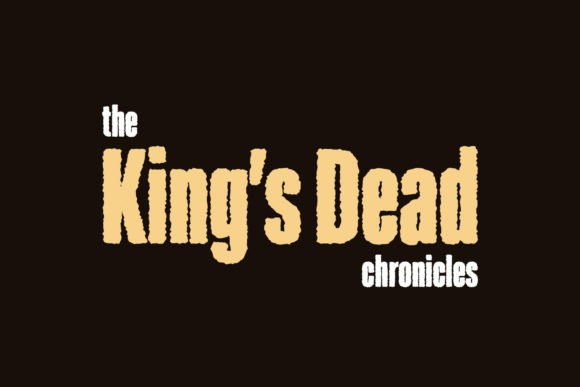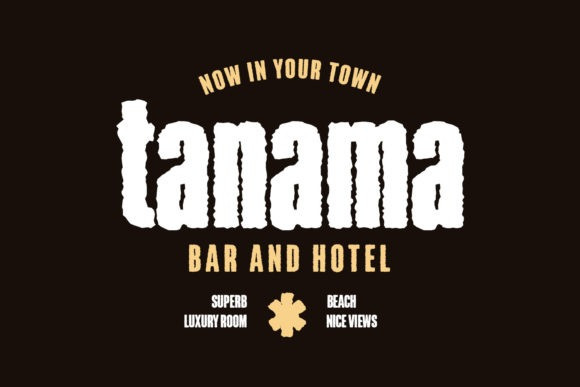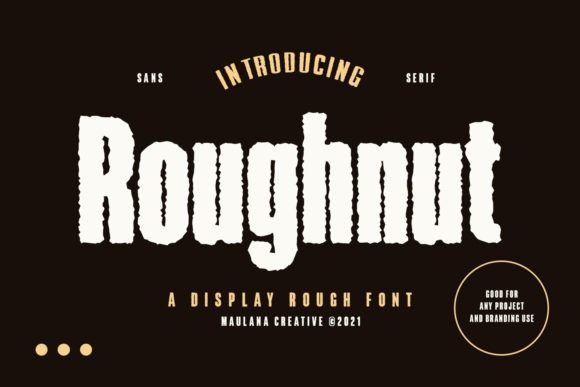
Roughnut Rough Font
Roughnut Display Font is a cool, bold display font. It will elevate a wide range of crafting ideas, from cards, to branding, labels and much more.
Add it confidently to your favorite creations and let yourself be amazed by the outcome generated.